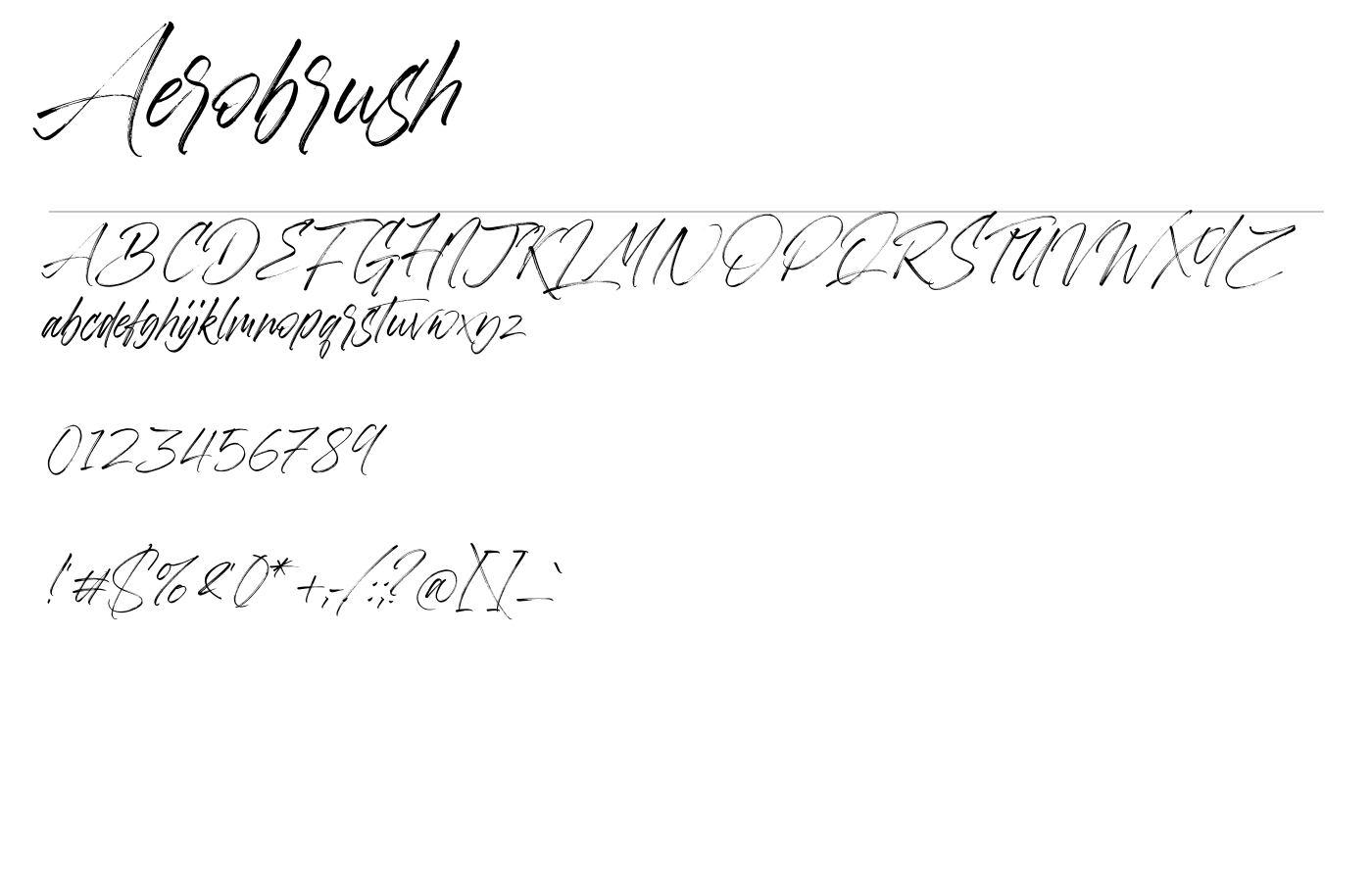
Aerobrush is a delicate, handwritten script font that captures an elegant, artistic flair with its thin, flowing strokes and dynamic, brush-like texture. It features tall, airy letterforms with a natural, slightly irregular style that adds personality and a casual yet refined feel, making it perfect for creative branding, invitations, and stylish headlines where a personal touch is desired.
Aerobrush Font
About Aerobrush Font
| Font family | Aerobrush Font |